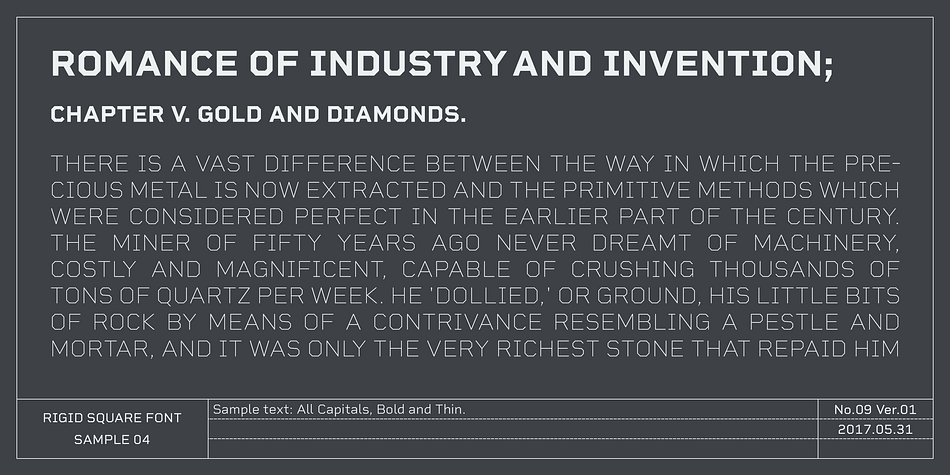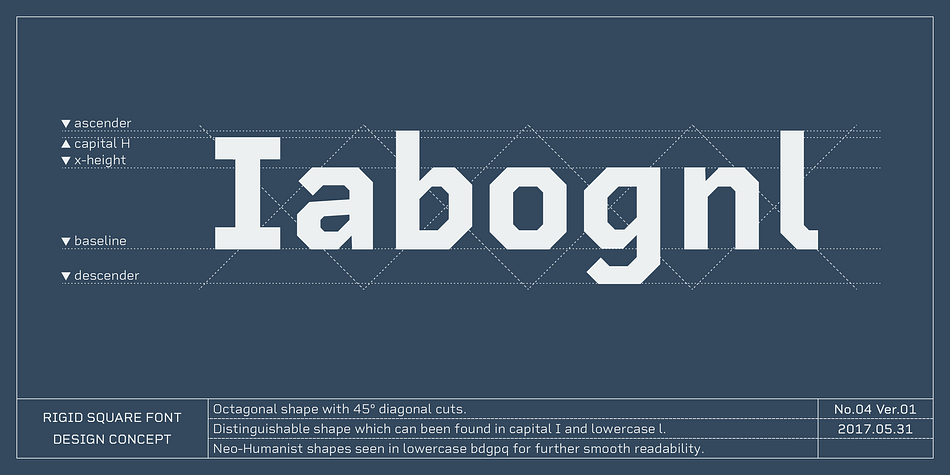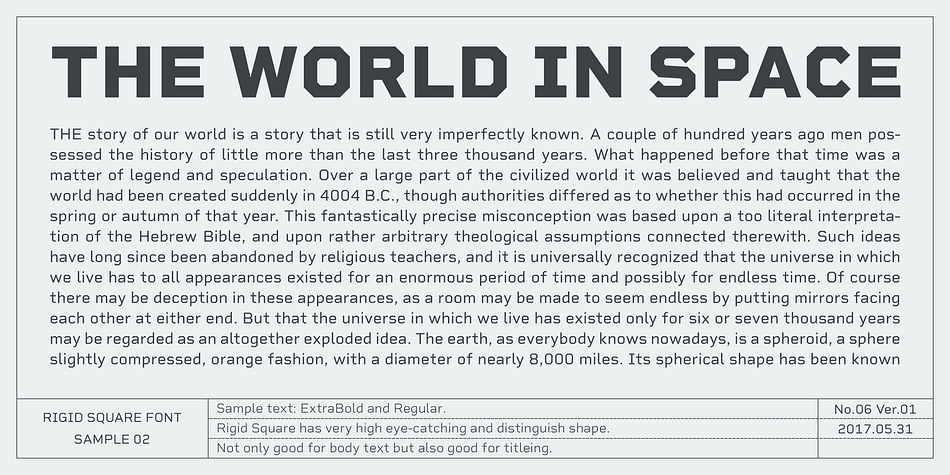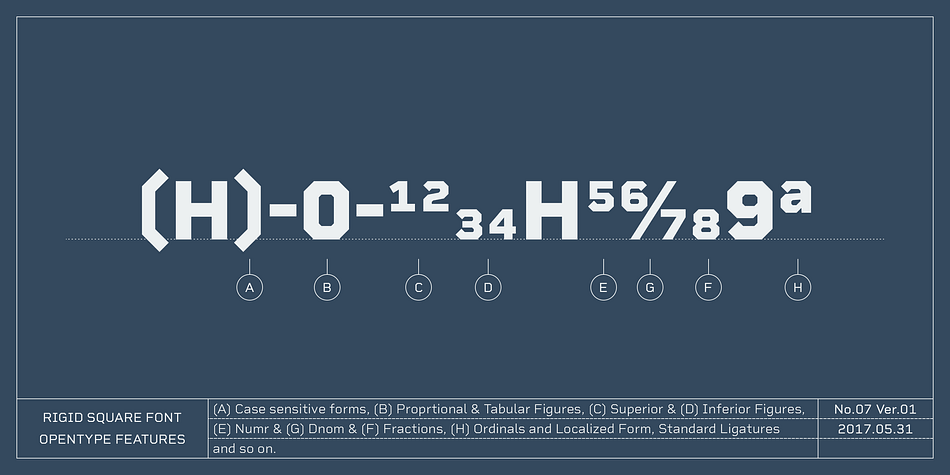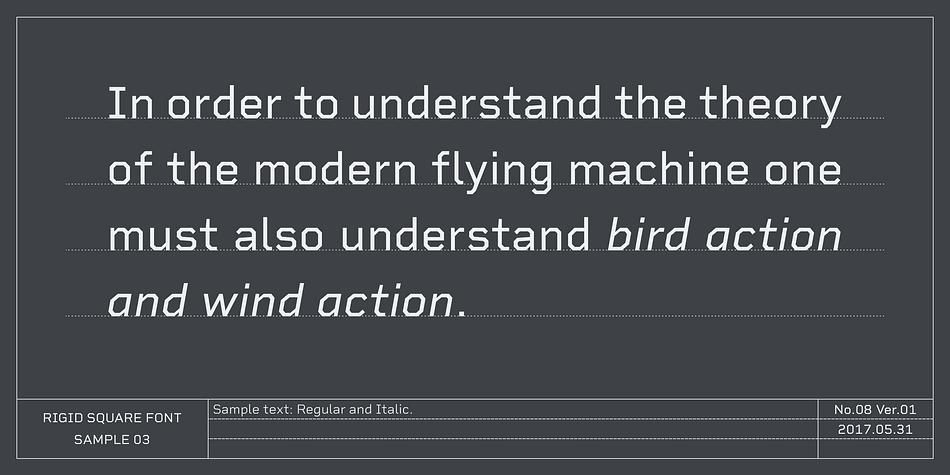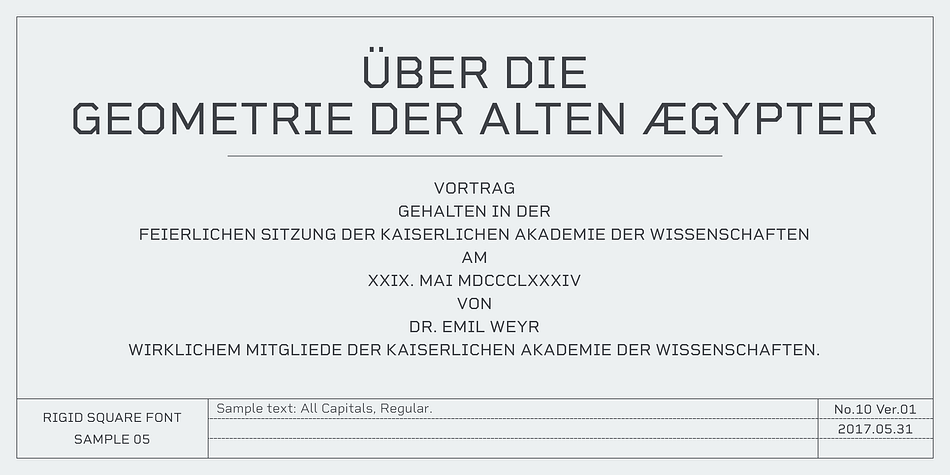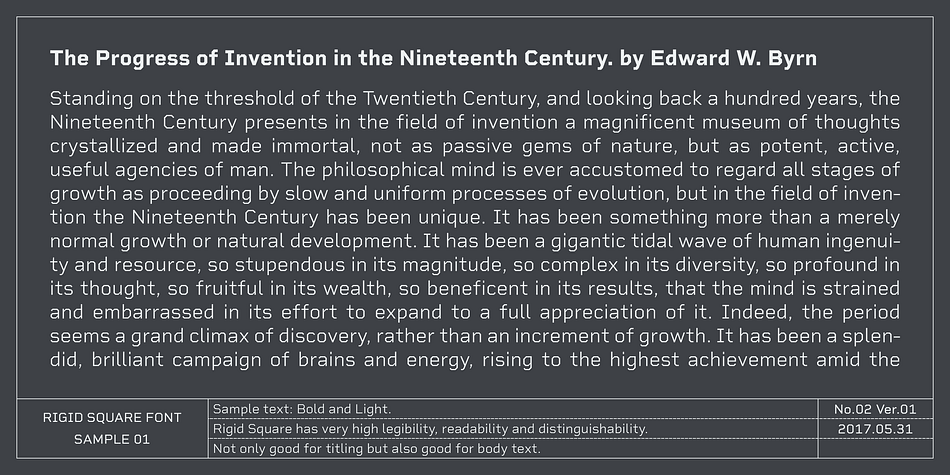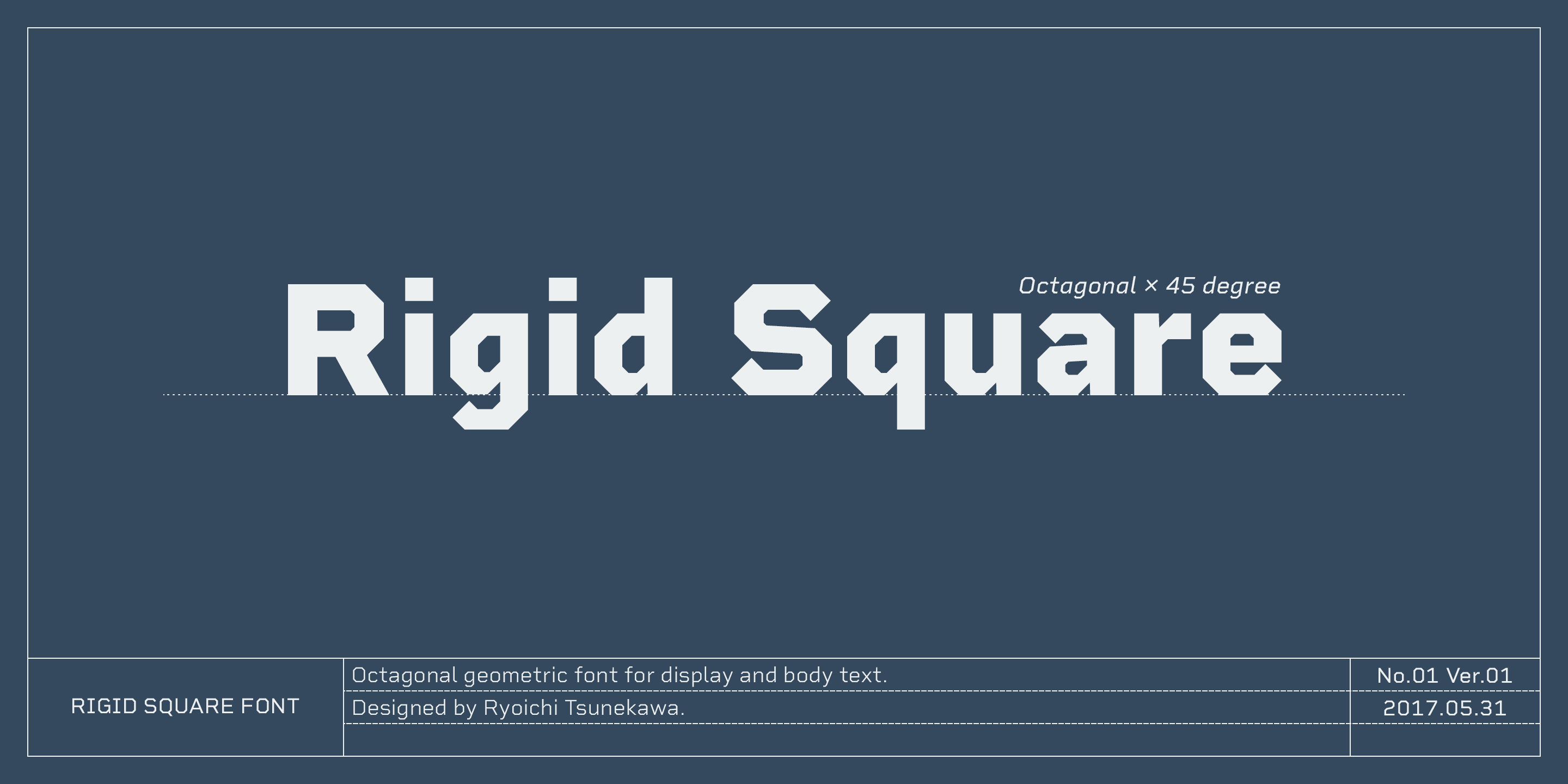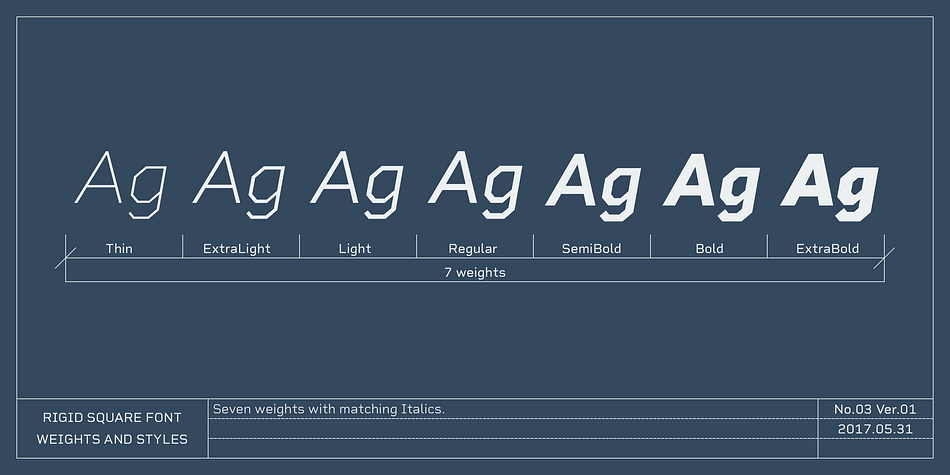
Rigid Square is a sans serif and wood type font family. This typeface has fourteen styles and was published by Dharma Type.
There is a rule, Octagonal shape and 45 degree cuts.
Very geometric shape but designed especially for body text, long sentence such like a mechanical instructions. Capital I and lower l have distinguishable shape. Neo-humanist shape on lowercase b.d.g.p.q is for further smooth readability.
However, Also useful for display, titling, captions by their sophisticated glyph shapes and their eye-catching geometry. Consists of seven weights and their matching italics. Supporting almost all latin languages.